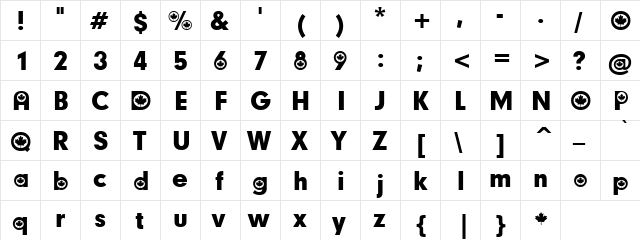
Covered Canada Regular
Design Context for Covered Canada Typeface
Covered Canada offers clean, dependable letterforms without strong stylistic allegiance, making it a practical choice for designers who need flexibility.
Pro Tip: Use Covered Canada in both headline and body roles to test its range before committing to a single application.